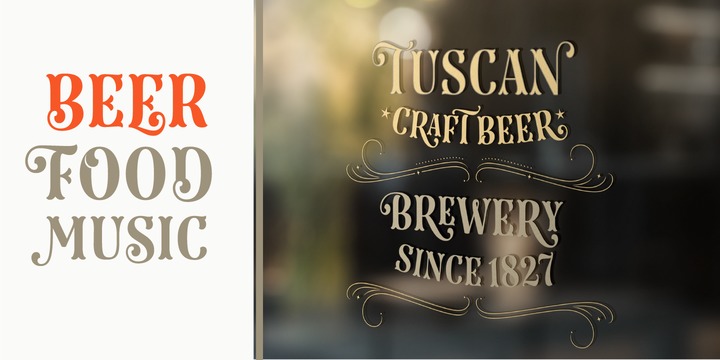
Looking at some specimen books of printing types of late nineteenth century, I found many ornamented capitals for headings among the typefaces.
Most of them showed a flourish like a tuscan serif - a characteristic trait of a peculiar capital lettering made with brush.
Dress is the result of the mash up between that influence and the Didone style - perfect for display.
To decorate, to adorn, to dress a design piece is the intention of this family, adapted to the twenty-first century.
The font should embellish book covers, publications, packagings, movie posters, greeting cards, stationery, among other uses.
Started up by the authors hand, Dress is a professional work, accurate, well spaced, with ligatures and alternates for uppercases, initials, endings and figures.
Each variable contains more than 1200 glyphs with plenty of OpenType features and extensive Western, Central and Eastern European language support.
The characters of the shades, inlines and outlines were not automatically made.
Instead, they were drawn one by one in order to take care of every detail, even the change of pressure of the hairlines.
The main member of this family is the Base font which can be used alone or decorated with the layers: Shade One or Shade Two, Inline One or Inline Two and Outline.
In this way, experienced designers will create their own combinations. On the other hand, there are multi-layered fonts that make Dress easier to use: Dress Combo One to Five.
Additionally, Dress Deco adorns the beginning and the ending of the words (1) while the Ornaments decorates the whole design.